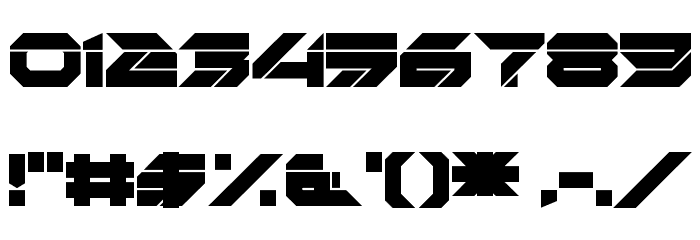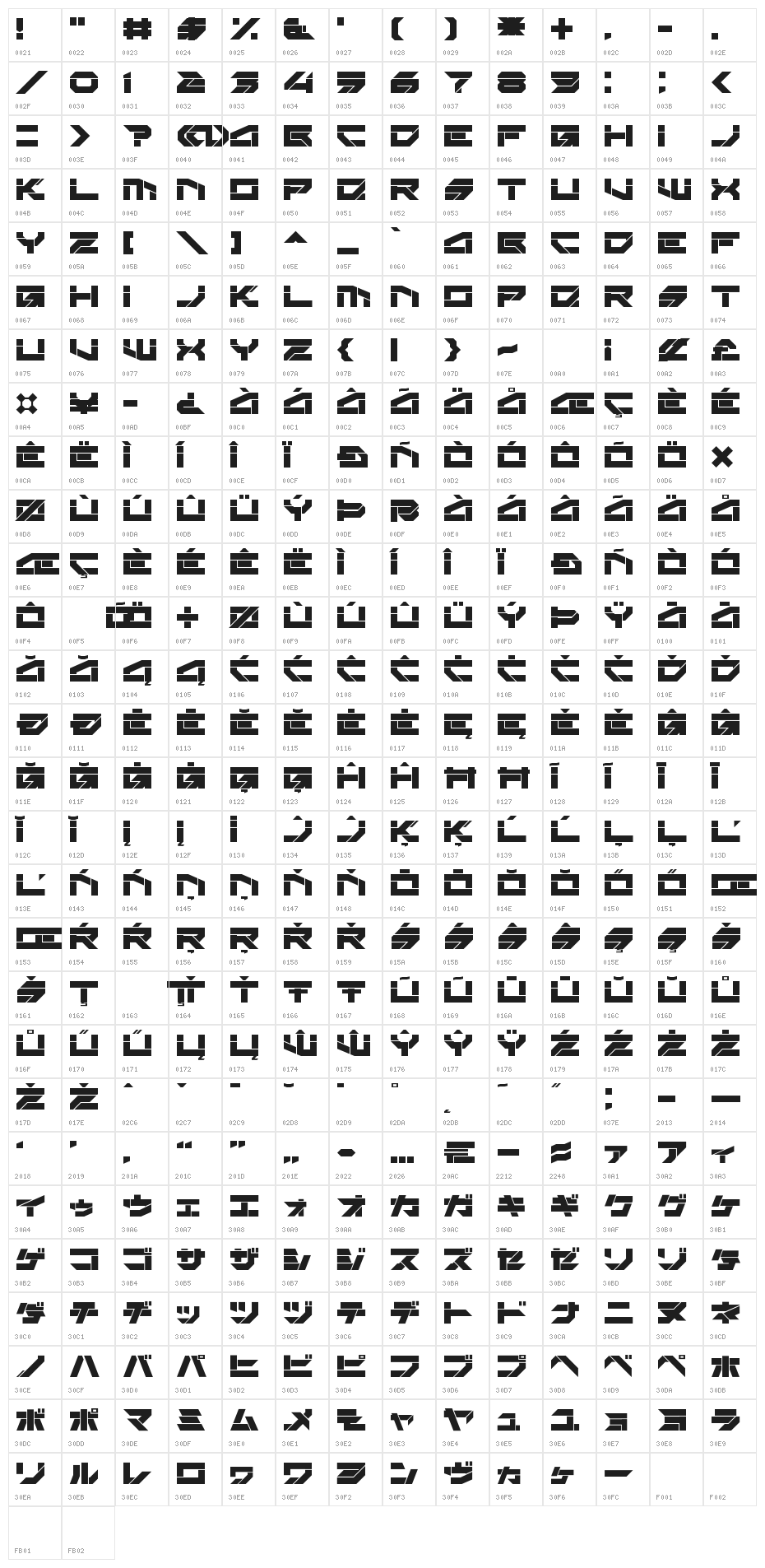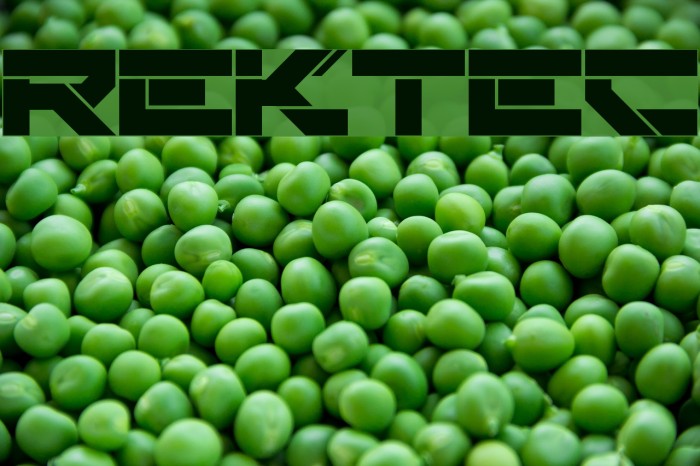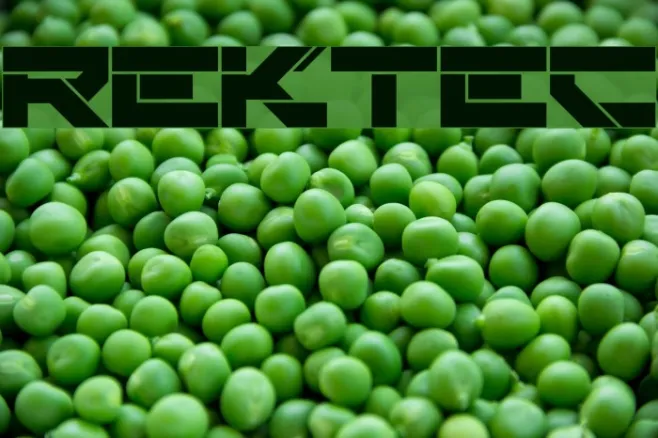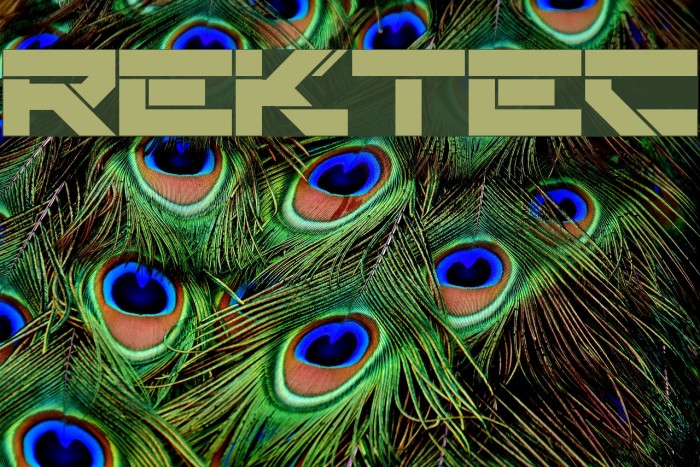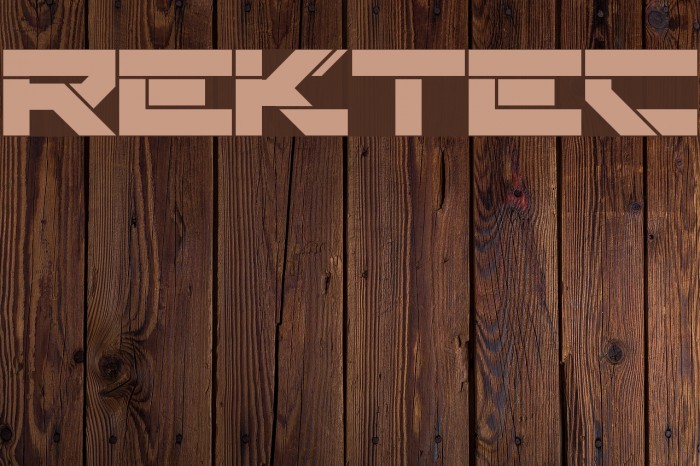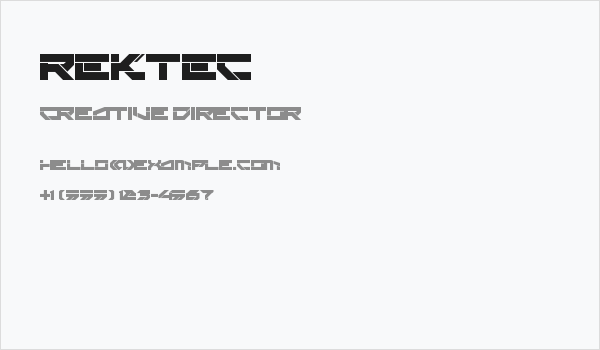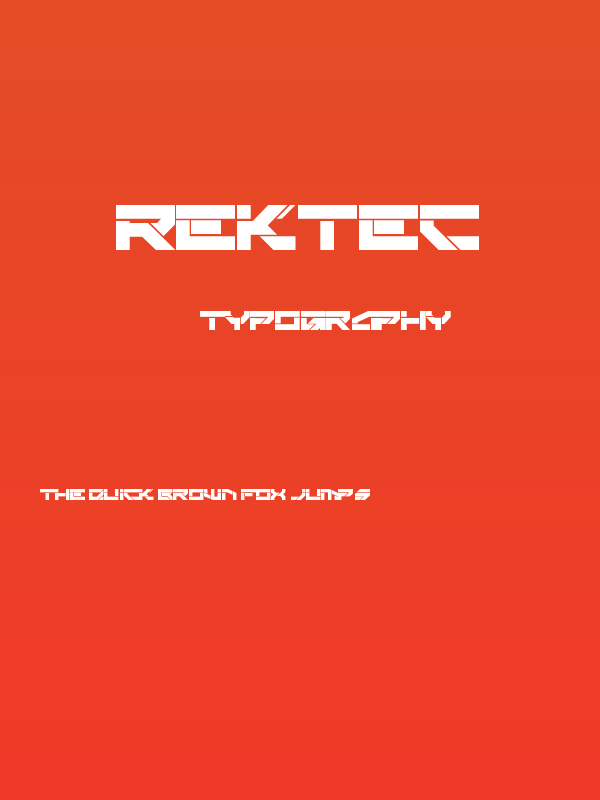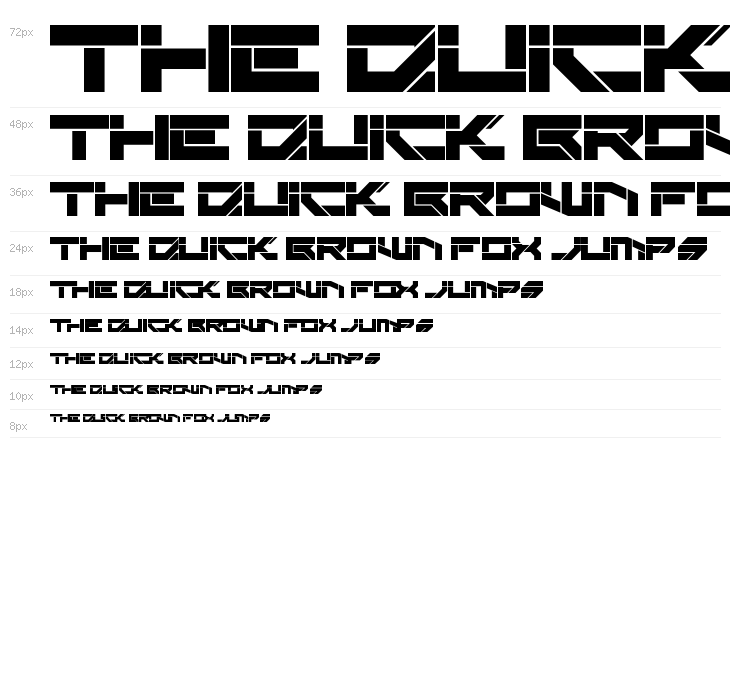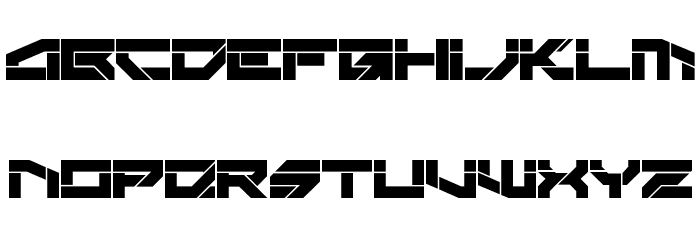
Rektec Font
Rektec Description
This font features a bold, geometric design with sharp angles and a futuristic aesthetic. The characters are constructed with a series of straight lines and angular cuts, creating a sense of movement and modernity. The uppercase and lowercase letters maintain a consistent style, emphasizing a cohesive look. Numbers and special characters follow the same design principles, ensuring uniformity across all glyphs. The font's unique style makes it stand out, ideal for projects that require a strong visual impact.
| Proposed Projects | Ideal for sci-fi themed designs, technology branding, video game titles, and modern posters. |